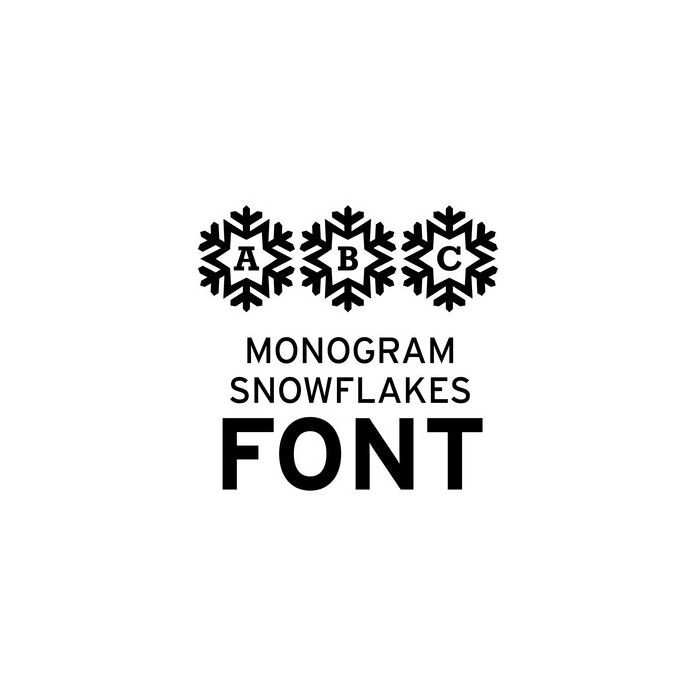
monogram snowflakes font
With this font you can simply type the decorative monogram letters that you need to make a quick and easy vinyl or heat transfer project.